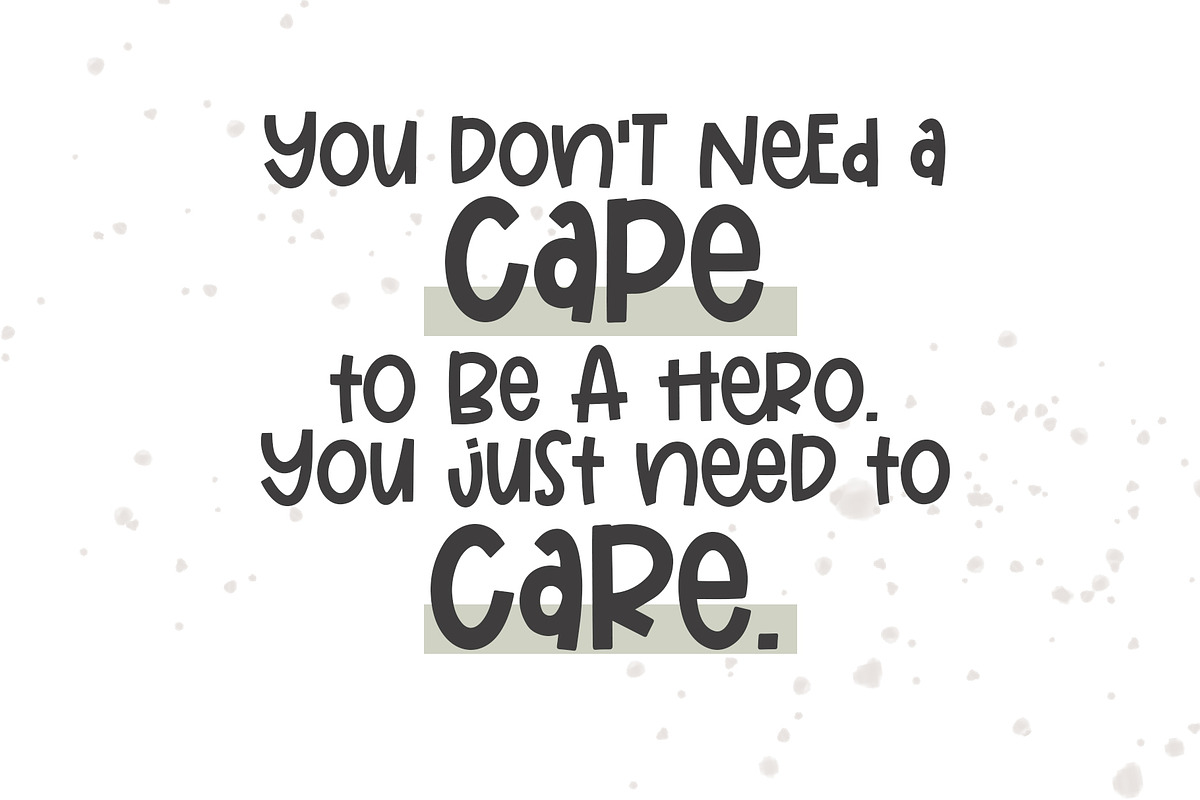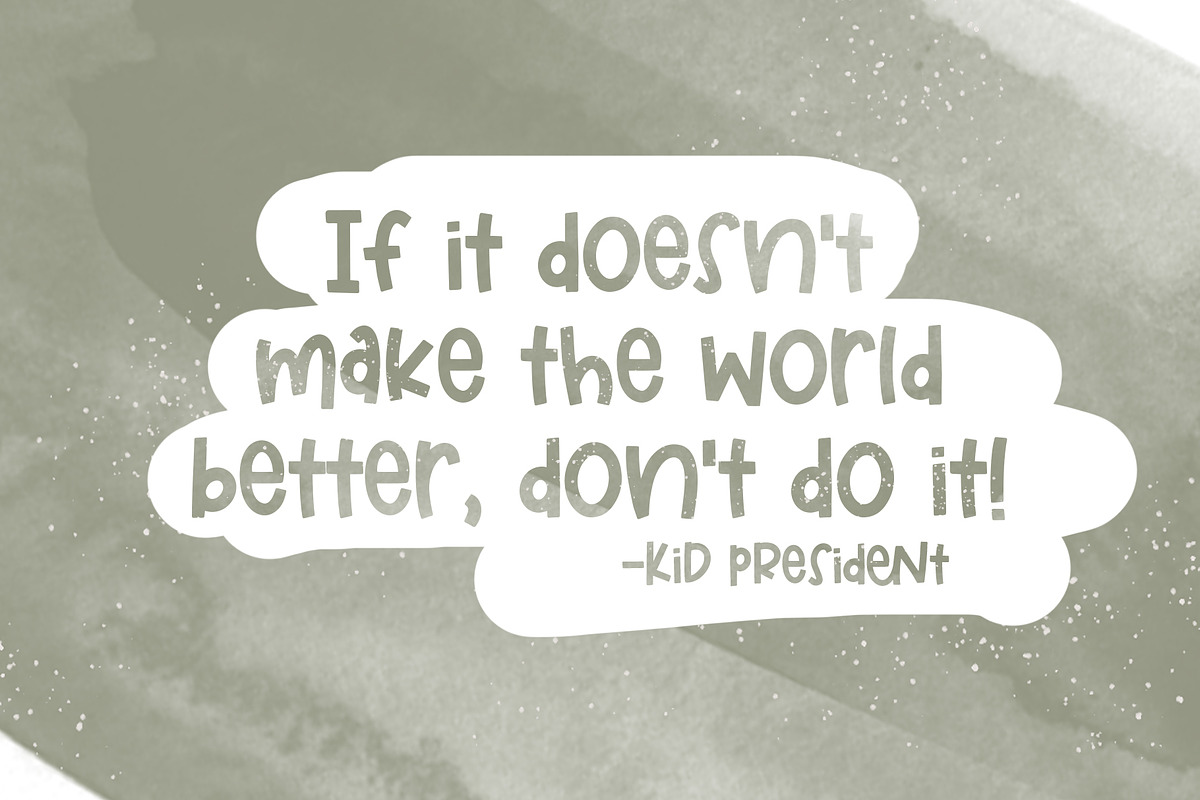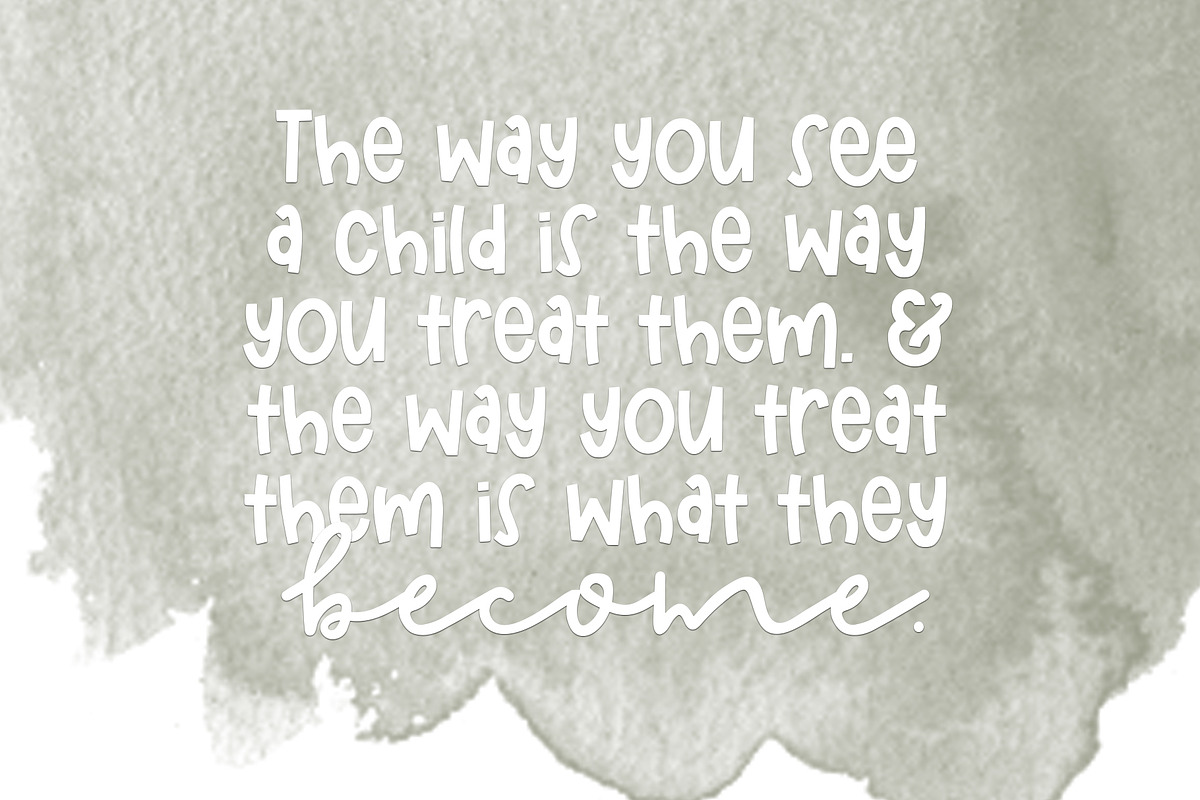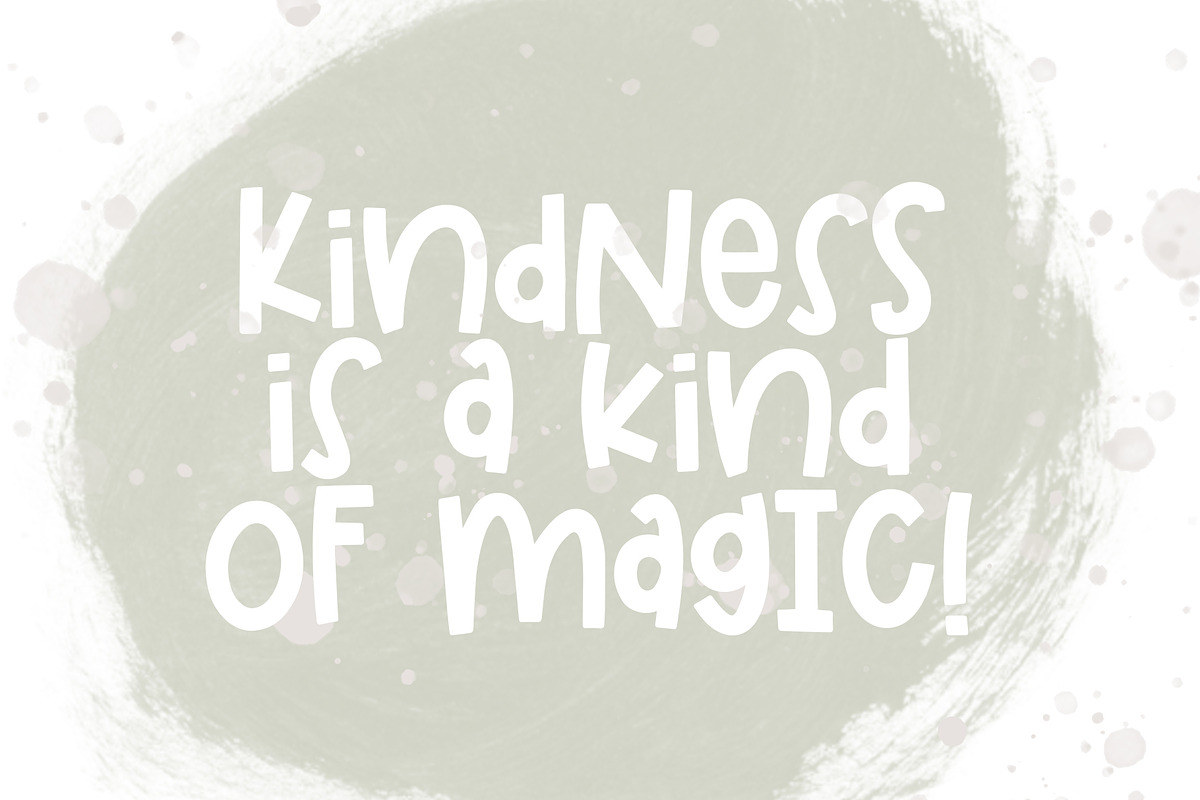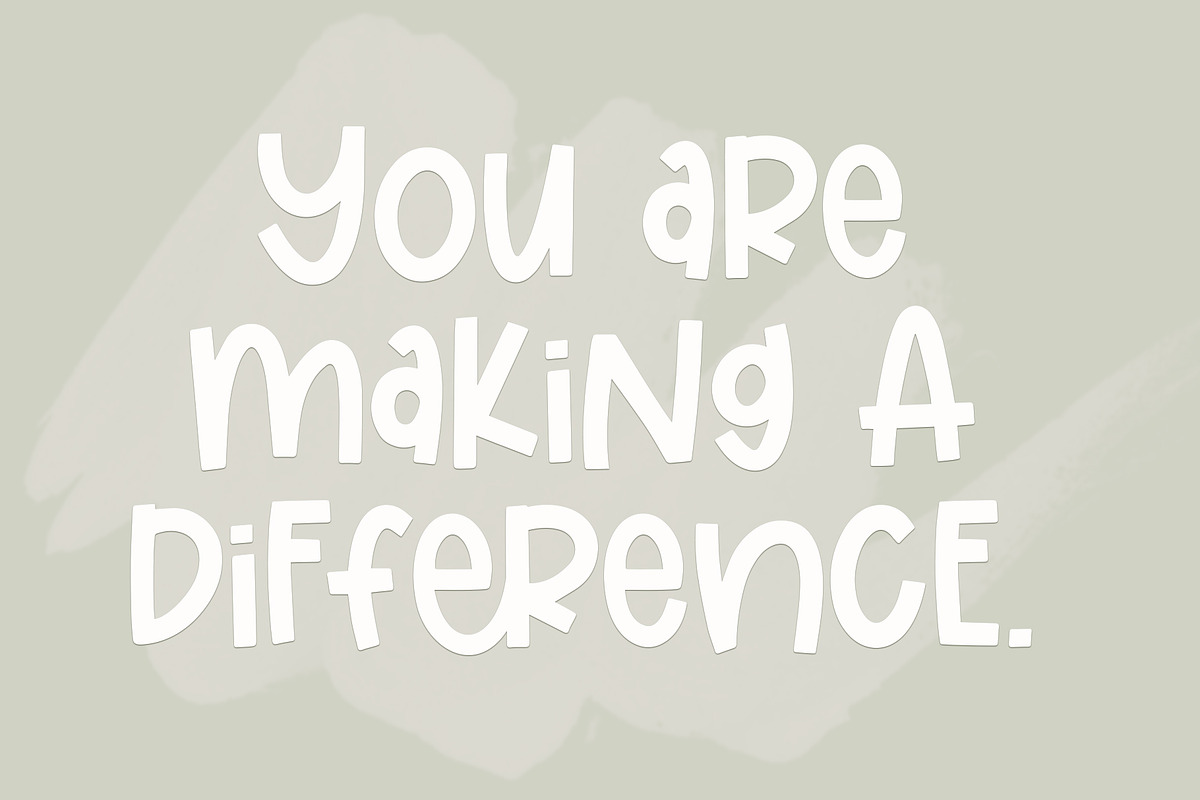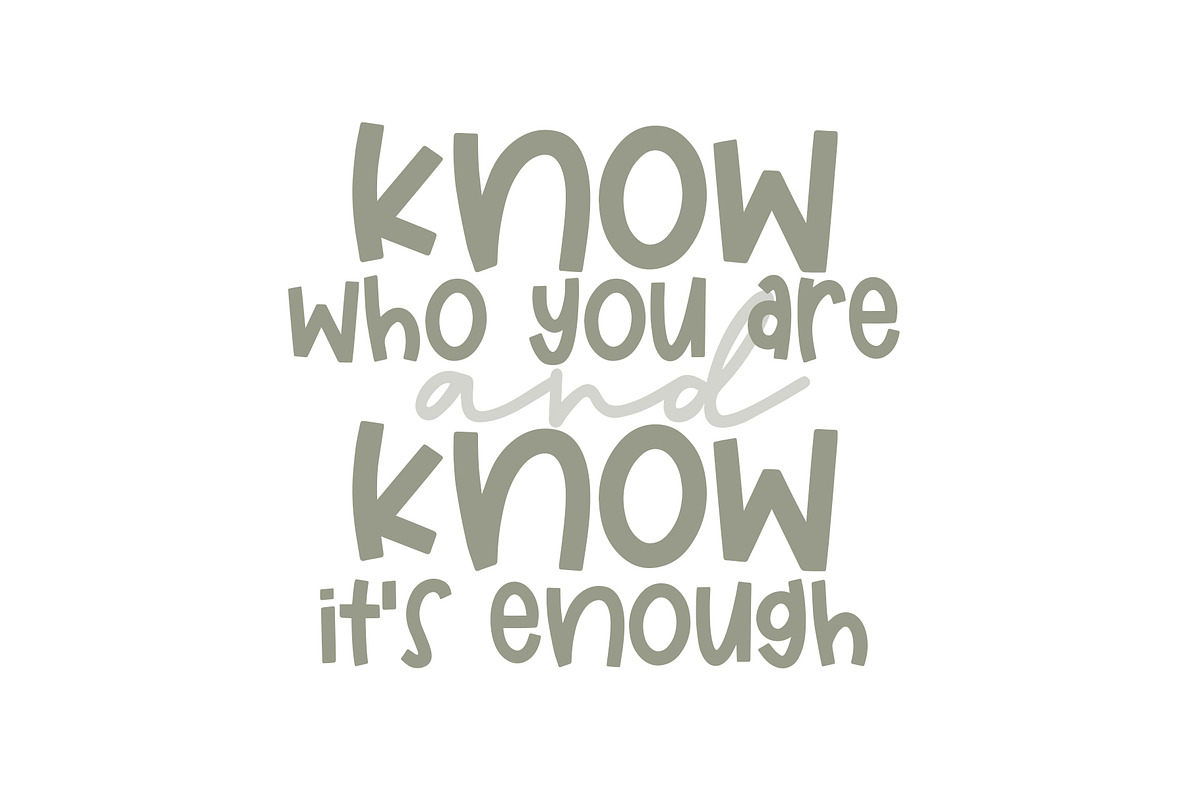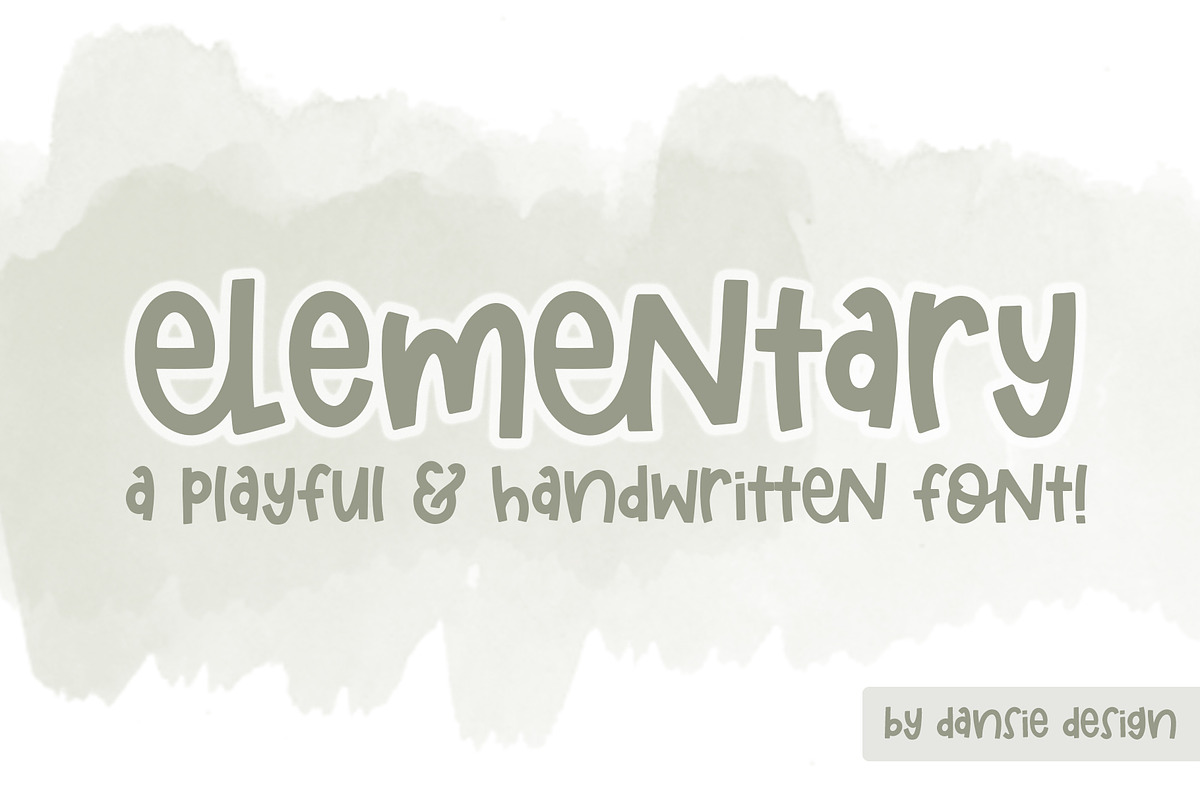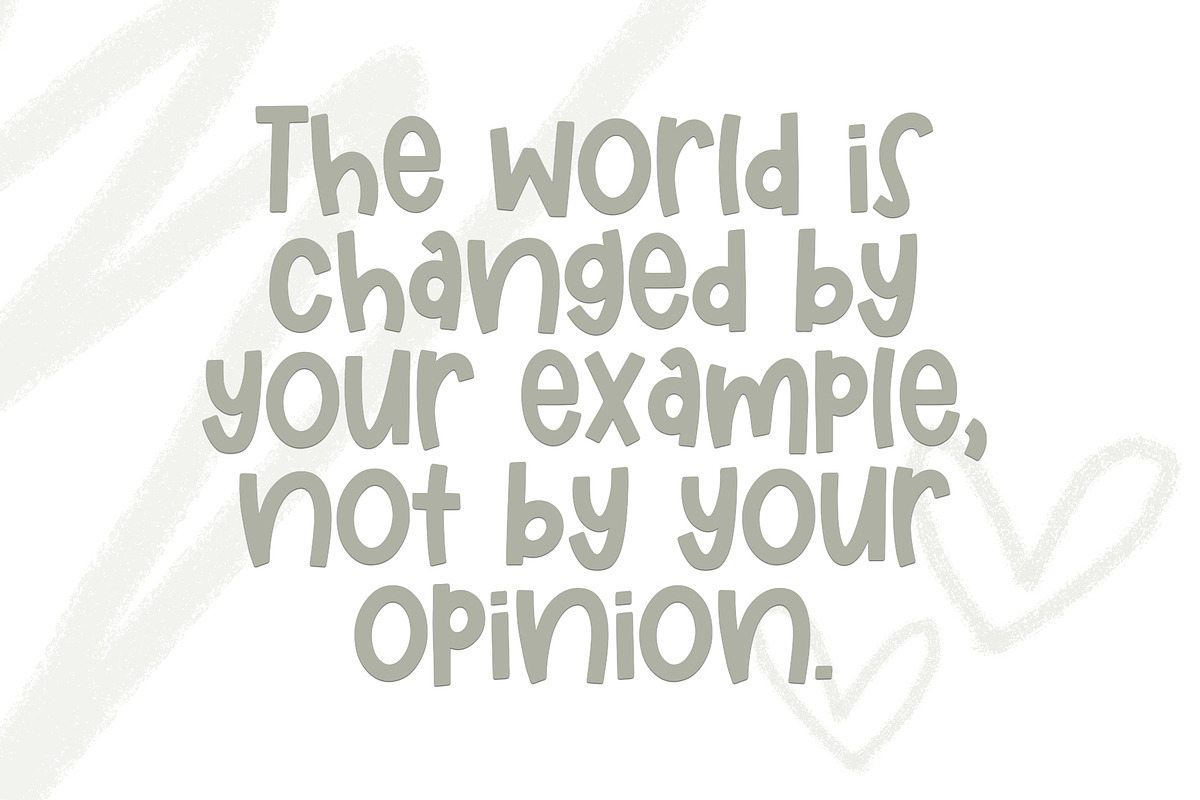
Elementary Font
A fun & playful hand written font ready for all your design projects!
This font has 42 mixed case discretionary ligatures! You can also mix uppers and lowers together for a really cute & fun effect.
This font includes multilingual support for: Afrikaans, Albanian, Asu, Basque, Bemba, Bena, Chiga, Cornish, Danish, English, Faroese, Filipino, French, Friulian, Galician, German, Gusii, Icelandic, Indonesian, Irish, Italian, Kabuverdianu, Kalenjin, Kinyarwanda, Low German, Luo, Luxembourgish, Luyia, Machame, Makhuwa-Meetto, Makonde, Malagasy, Malay, Manx, Morisyen, North Ndebele, Norwegian Bokmål, Norwegian Nynorsk, Nyankole, Oromo, Portuguese, Romansh, Rombo, Rundi, Rwa, Samburu, Sango, Sangu, Scottish Gaelic, Sena, Shambala, Shona, Soga, Somali, Spanish, Swahili, Swedish, Swiss German, Taita, Teso, Vunjo, Welsh, Zulu
- This font has 42 mixed case discretionary ligatures!